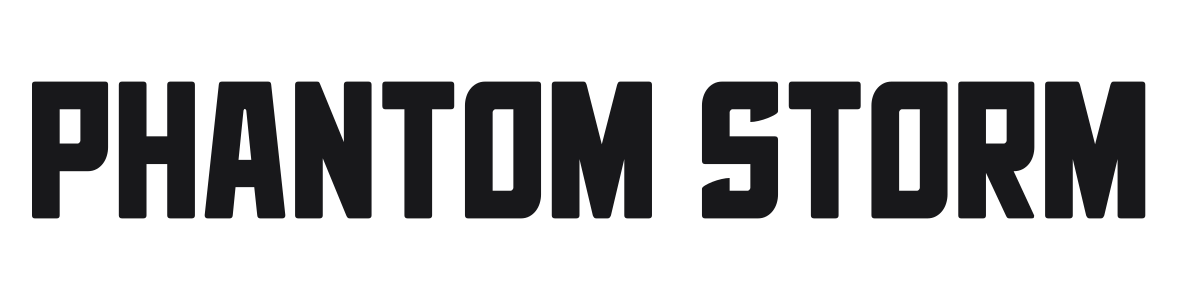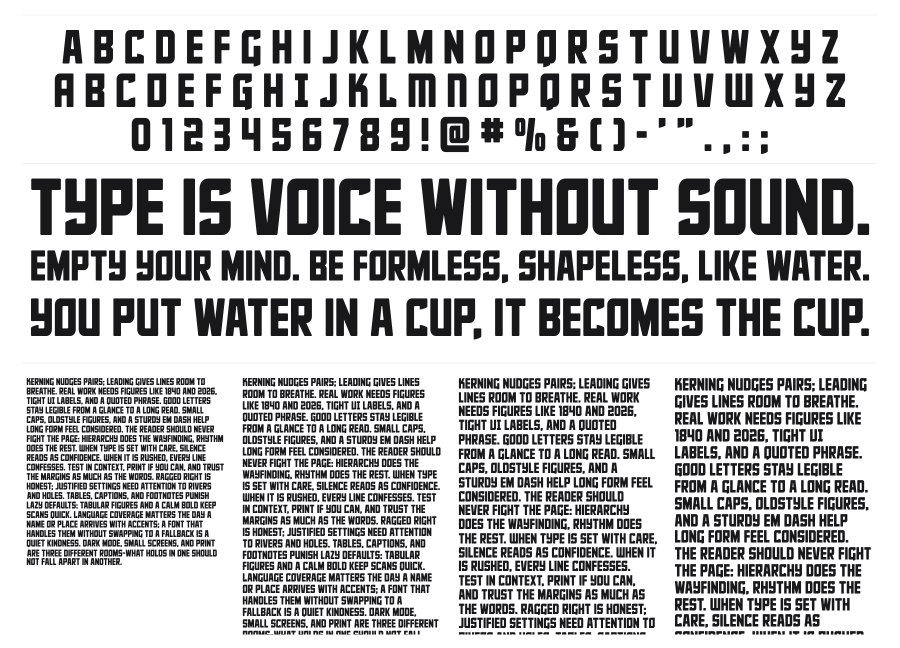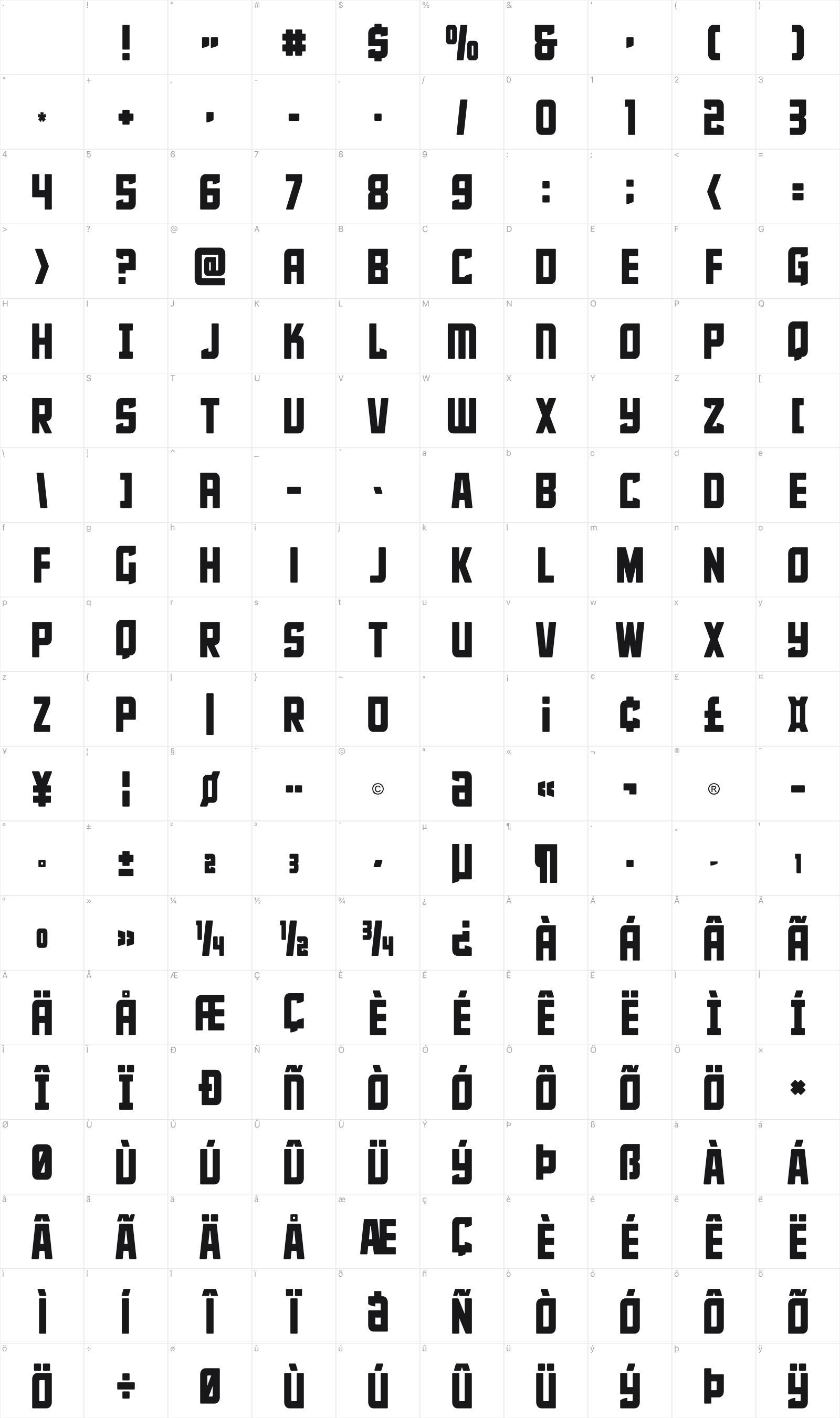
Phantom Storm
Phantom Storm is a heavy condensed display font from Iconian Fonts with a military-action edge. Angular notches and cut-ins disrupt otherwise solid letterforms, giving the design its battle-worn identity. It fits anywhere a headline needs to feel like it means business: game titles, movie posters, band logos.